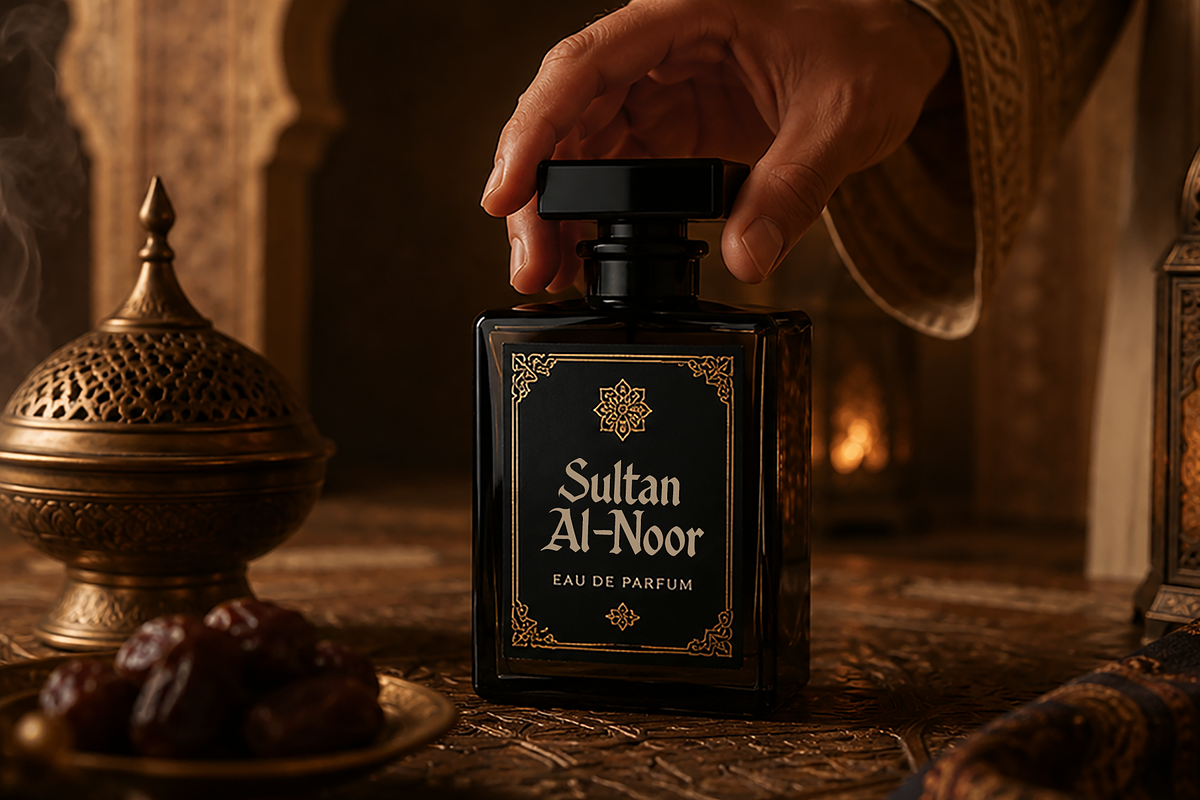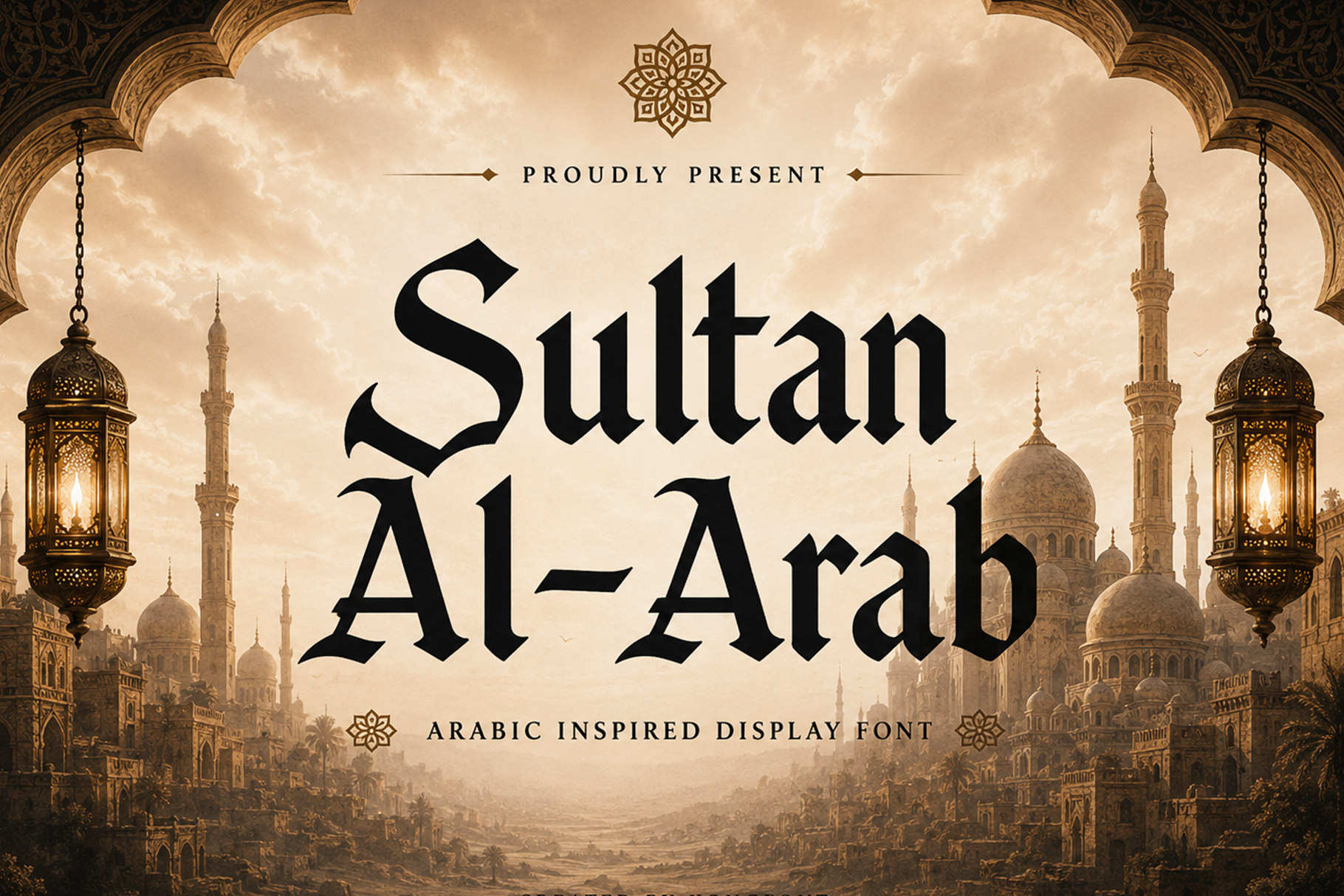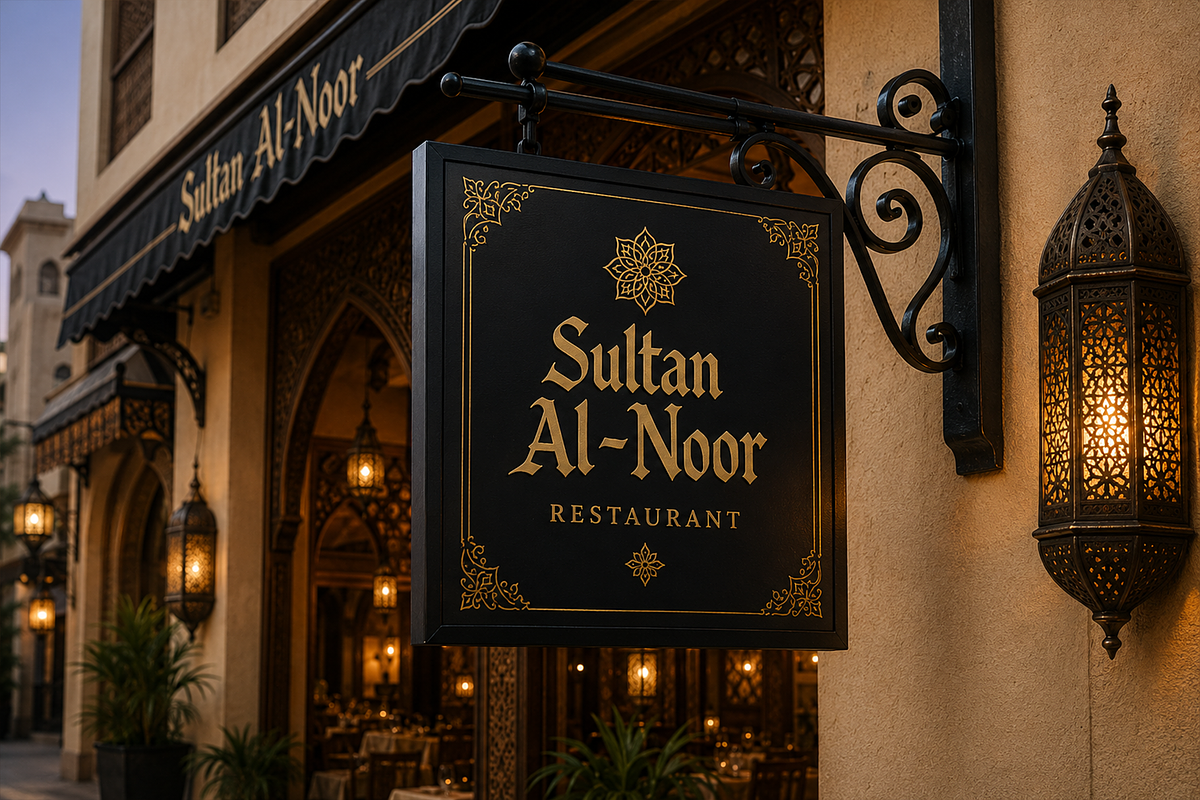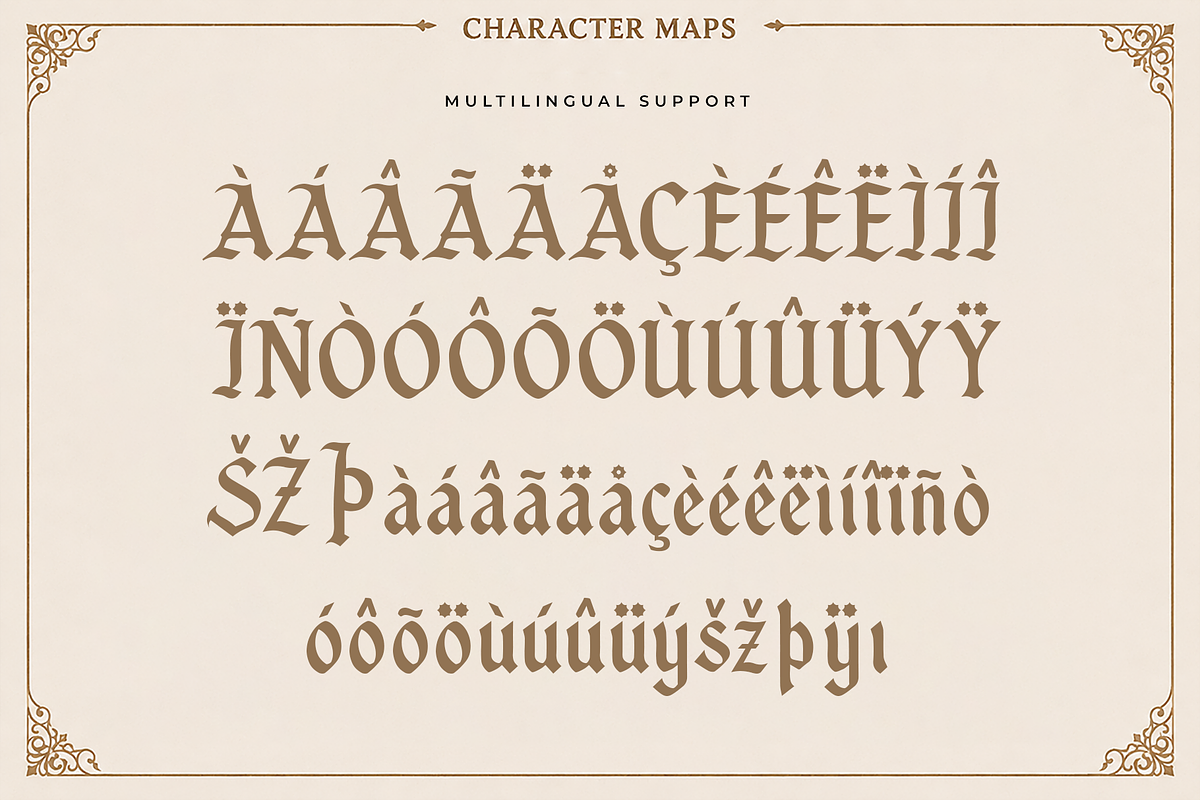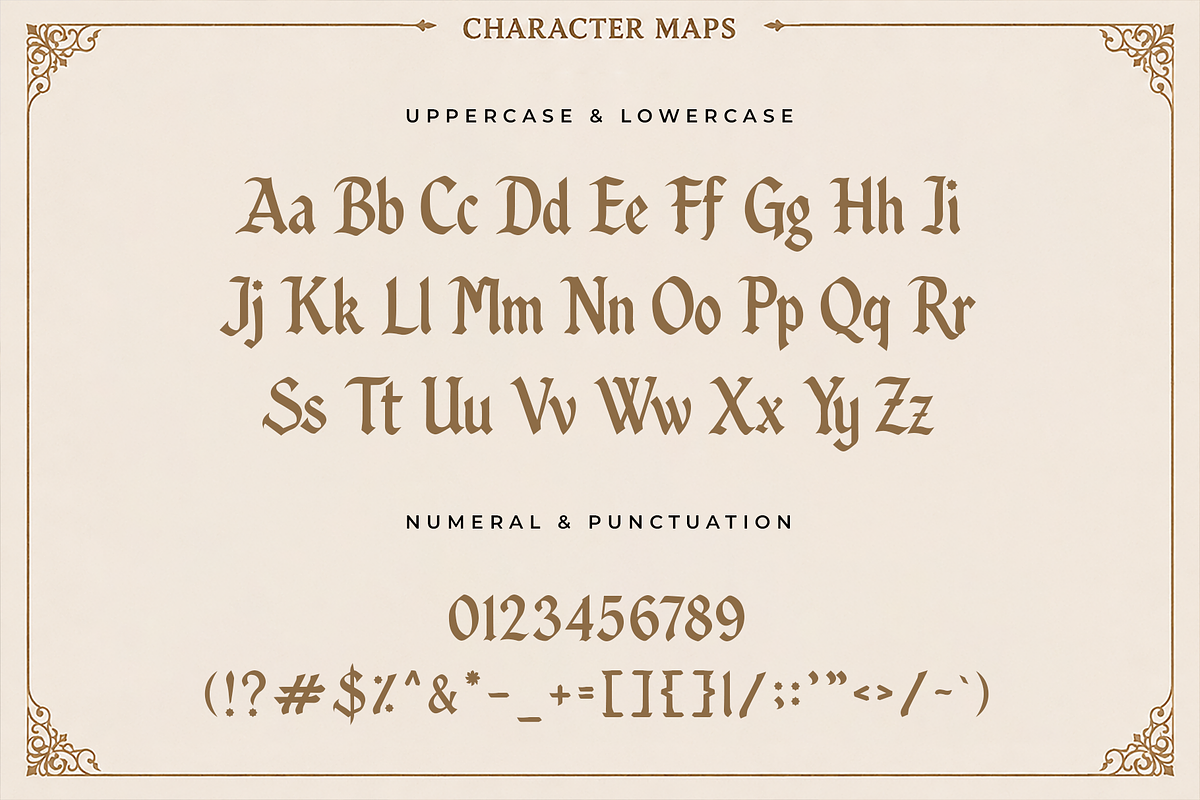
Sultan Al-Arab - Arabic Display Font
Meet Sultan Al-Arab, an Arabic inspired display font that blends the grandeur of Middle Eastern heritage with contemporary typography. Featuring bold letterforms, elegant pointed terminals, and ornamental details, this typeface captures the majestic spirit of Islamic architecture and traditional Arabic artistry while remaining highly versatile for modern creative projects.
Whether you're creating branding inspired by the Middle East, designing elegant invitations, producing Islamic themed content, or developing premium packaging with an exotic touch, Sultan Al-Arab delivers a commanding visual identity. Complete with uppercase and lowercase letters, numerals, punctuation, multilingual support, and carefully refined glyphs, this font provides both beauty and functionality for professional designers.